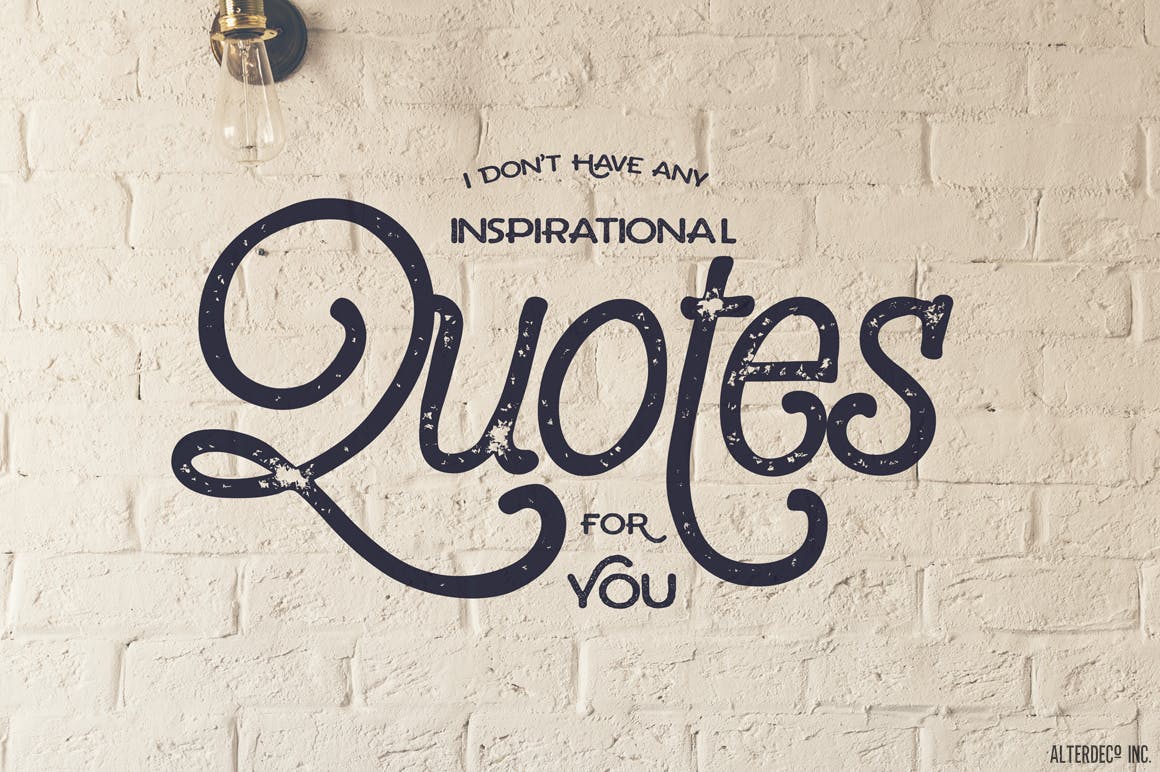
Mouthen Typeface
Mouthen typeface, is a rough handlettered style font. It will bring hand drawing style to your typography designs. It’s perfect for wedding design projects, invitations, greeting cards, signatures, watermarks, logos, handwriting and more. in zip file you’ll find a font file & preview image.
Mouthen Typeface feature: Uppercase Lowercase Numeral & punctuation.